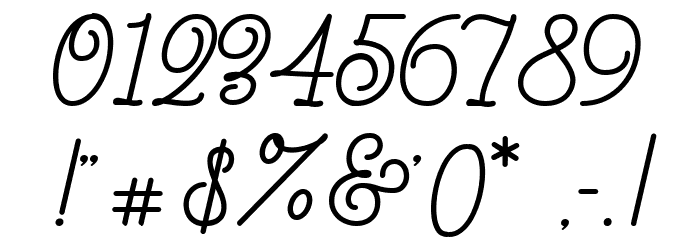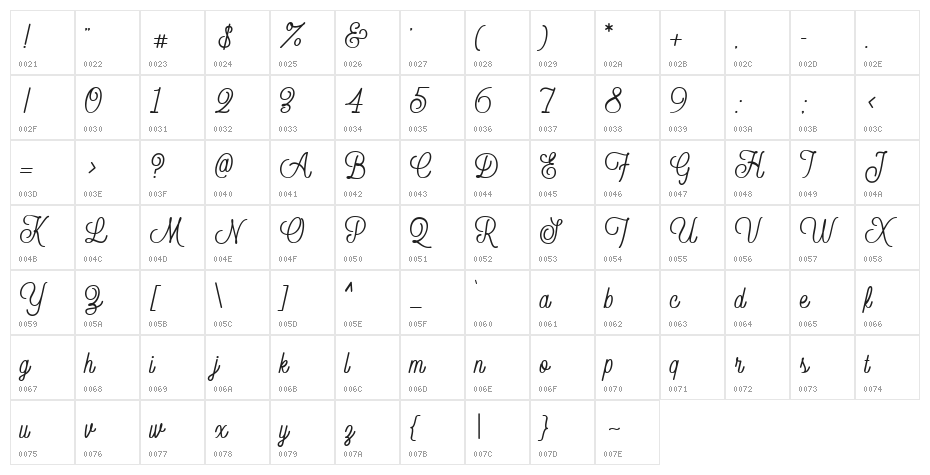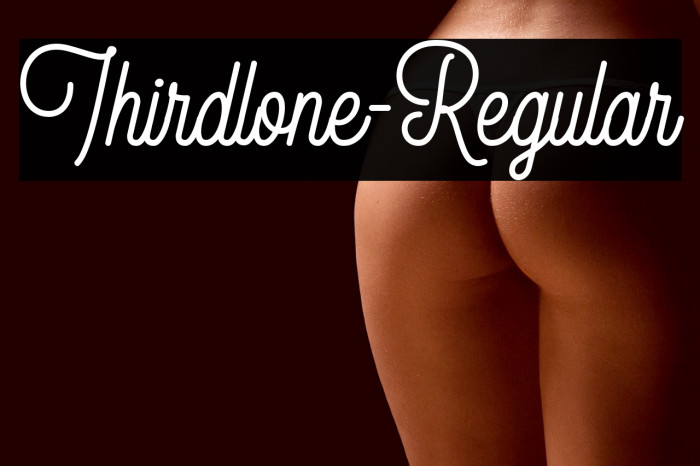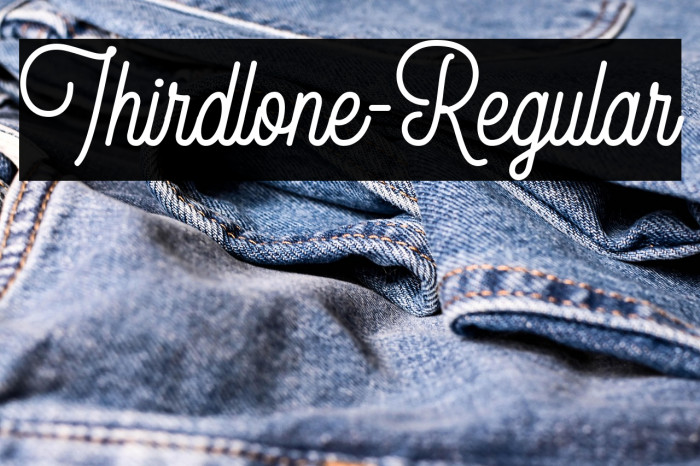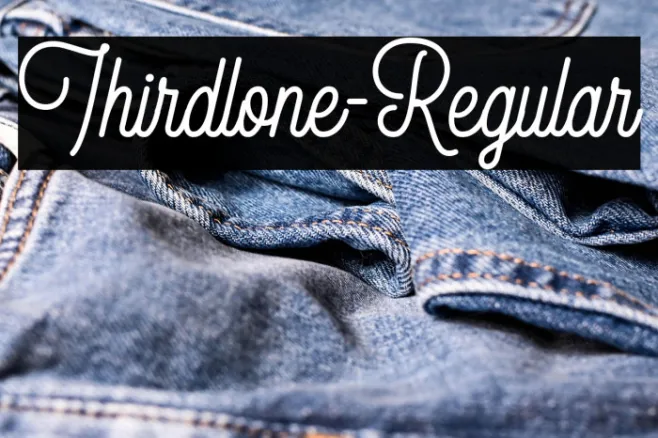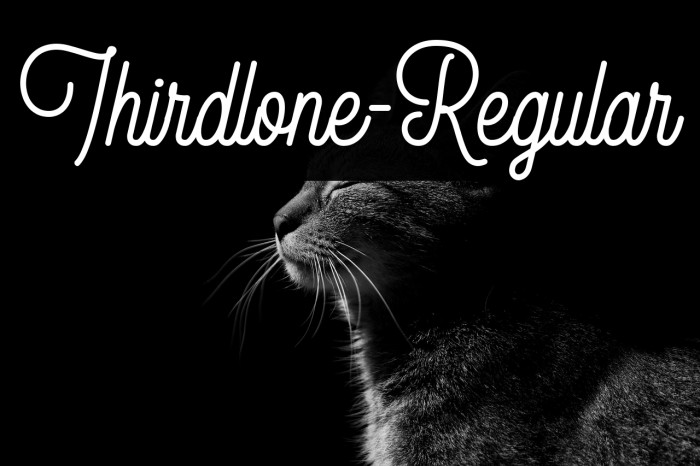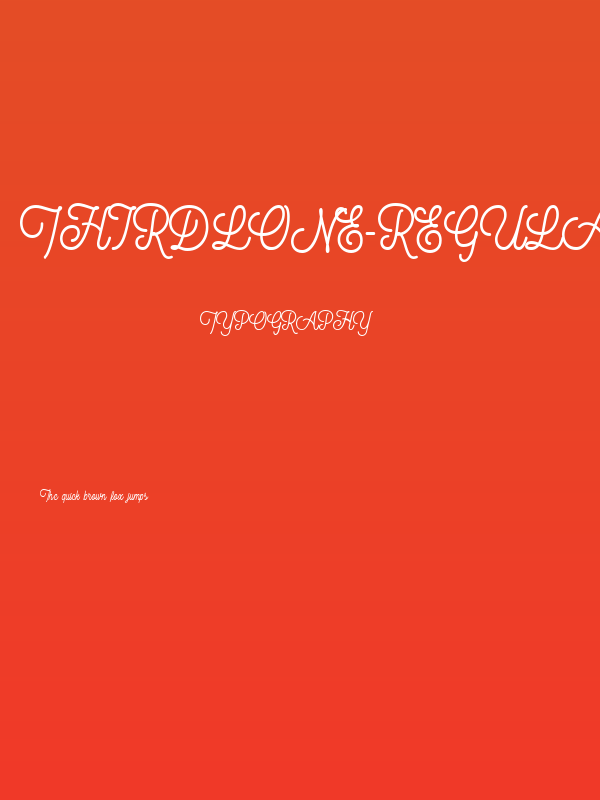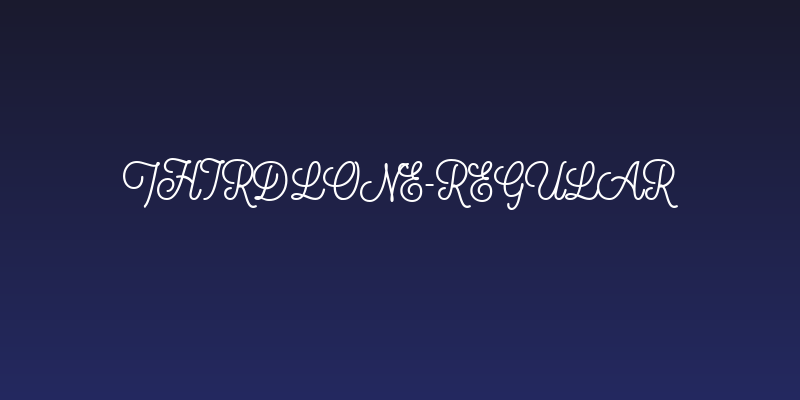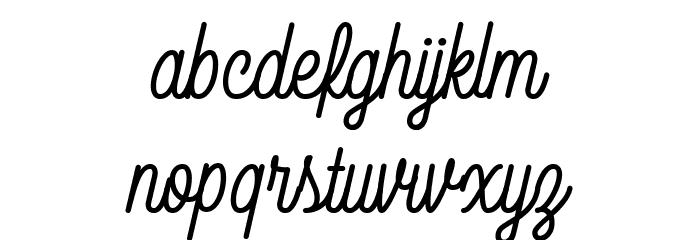
Thirdlone-Regular Font
Thirdlone-Regular Description
This font features a distinctive cursive style with elegant, flowing lines that give it a handwritten appearance. The uppercase letters are particularly ornate, with loops and swirls that add a touch of sophistication. The lowercase letters maintain a consistent flow, enhancing readability while preserving the decorative nature. Numbers and special characters are designed to match the overall aesthetic, ensuring a cohesive look. The font's playful yet refined style makes it suitable for creative projects that require a personal touch.